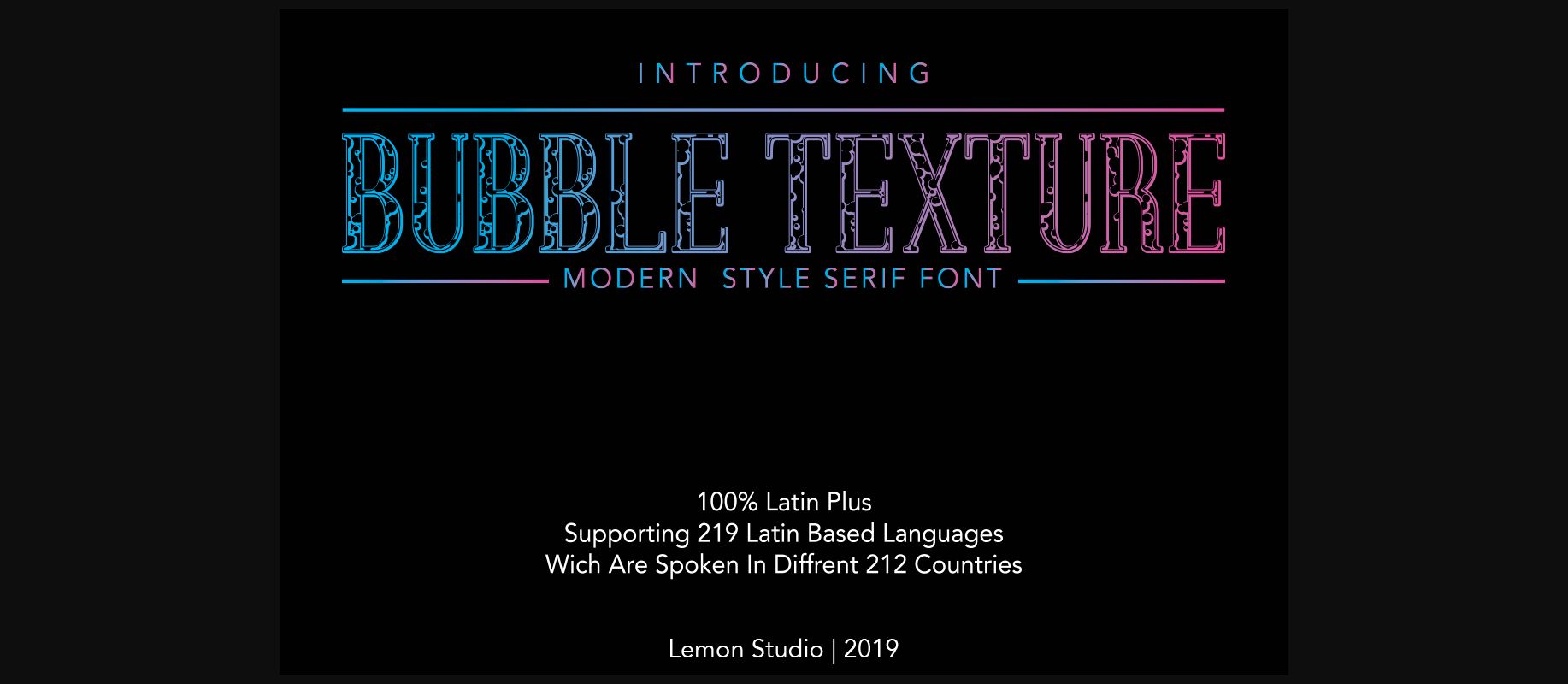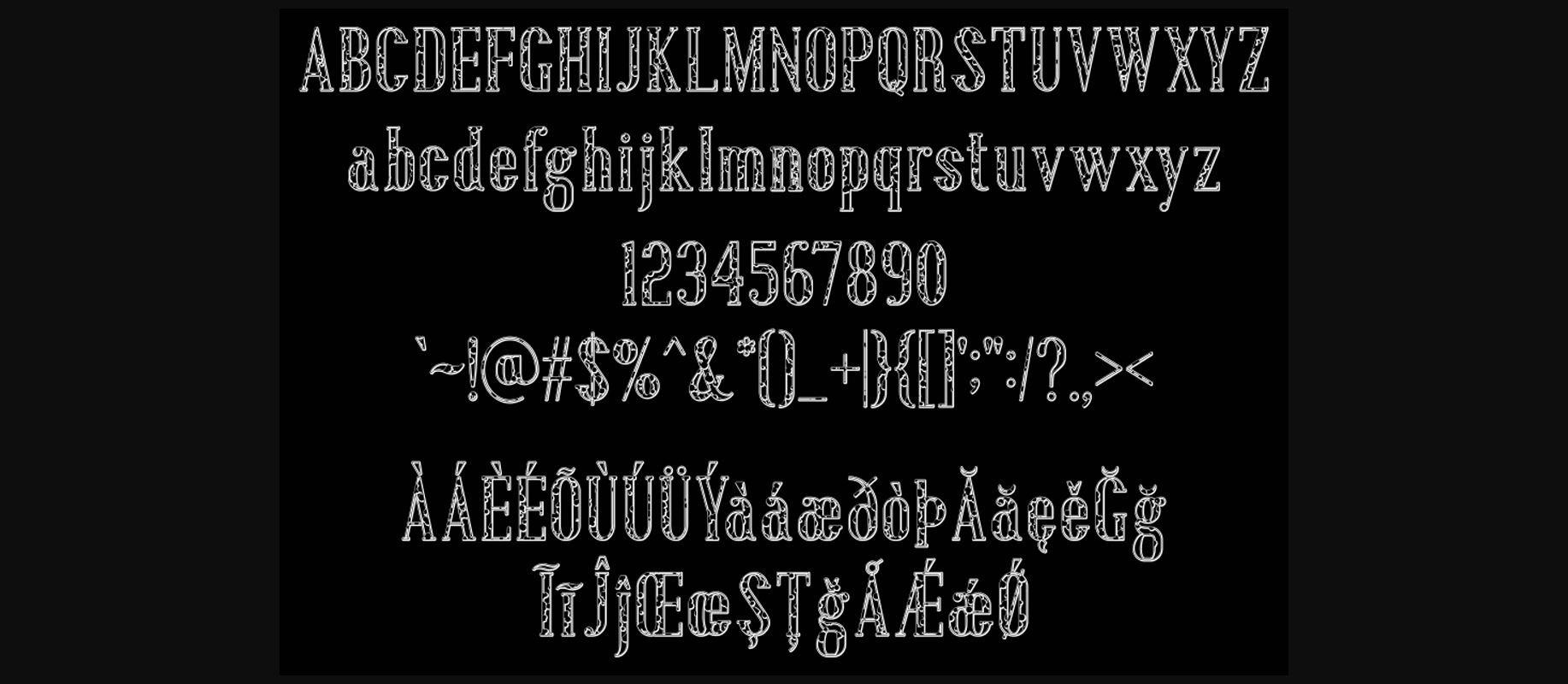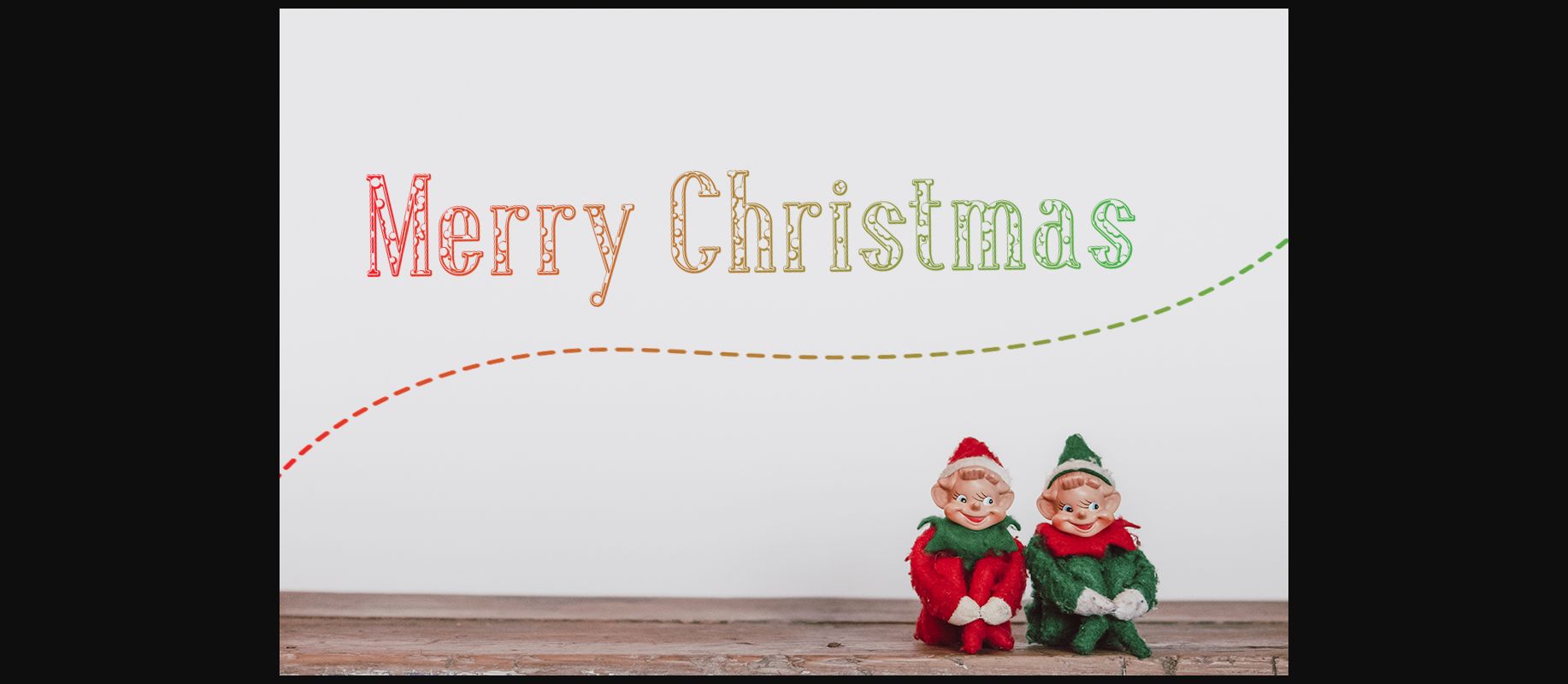
HomeDecorative FontsBubble Texture Font Decorative Fonts Bubble Texture Font FacebookXPinterestWhatsApp 1 of 3 About Bubble Texture Font Bubble Texture is a beautiful decorative font with a modern feel! DOWNLOAD NOW People also explored Anjast Martha 1 Font Nian Chinese Monogram Font Necromad Font Orslab V01 Font Gardenia Font Signature Font Latitude Sans Stay Chill Font Letters Painted Font 362 0 TagsBubble Texture Font Previous articleGlitchren Italic FontNext articleSierce Font LEAVE A REPLY Cancel reply Comment: Please enter your comment! Name:* Please enter your name here Email:* You have entered an incorrect email address! Please enter your email address here Website: Save my name, email, and website in this browser for the next time I comment. Personal Use Free Retro Poster Personal Use Free Read more about this font Vivacious Personal Use Free Read more about this font Hanberra Personal Use Free Read more about this font Cottage Personal Use Free Read more about this font BLOG Top 10 Handwritten Fonts That Elevate Your Designs Top 10 Handwritten Fonts That Will Elevate Your Designs Handwritten fonts bring a warm, personal touch to every creative project. Whether you're designing logos, invitations,... Top 7 Google Fonts Alternatives for Faster and Privacy-Friendly Web Design (2025) Where to Buy American Fonts Online in 2024 Best Fonts for YouTube Videos: Make Your Thumbnails Stand Out